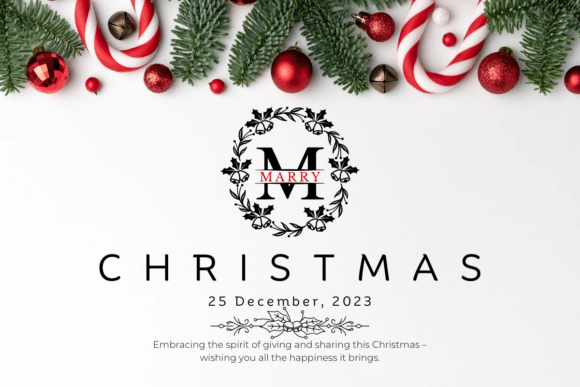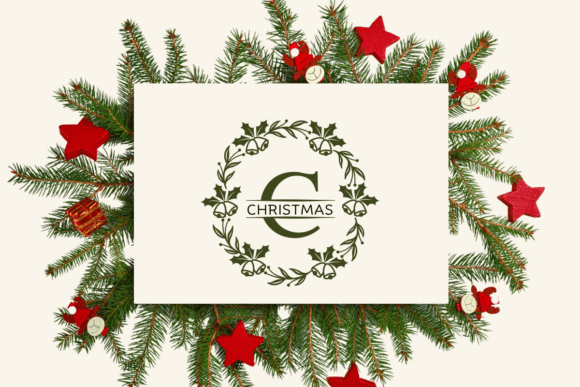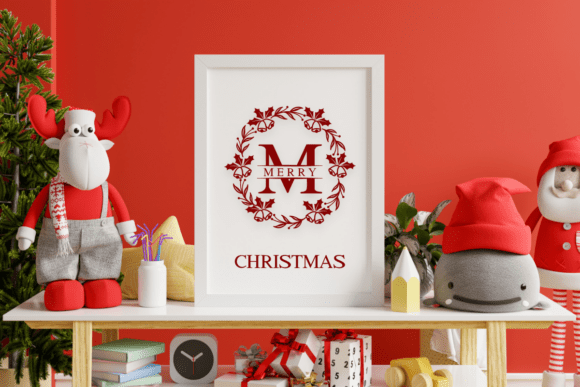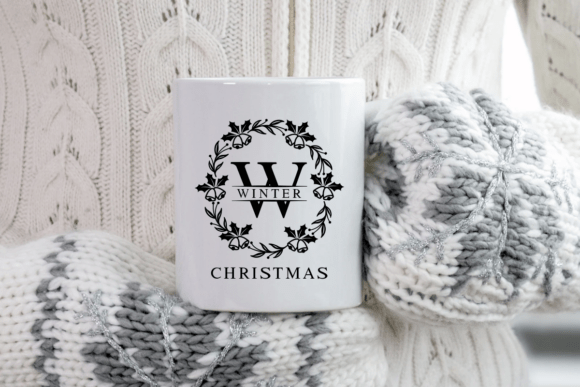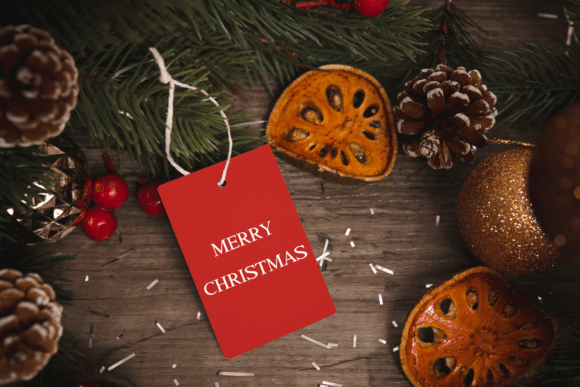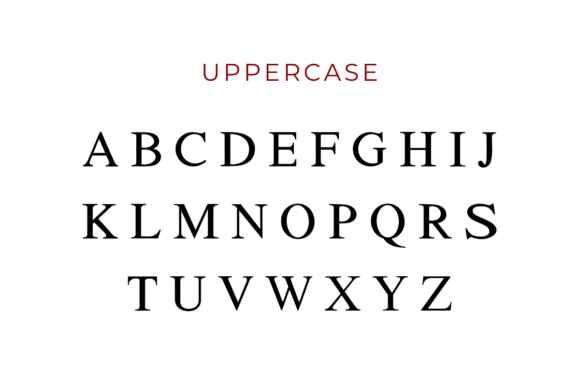
Holly Bell Monogram Font – Free Download
Introduction to Holly Bell Monogram Font
Holly Bell is a festive and elegant decorative font inspired by classic holiday charm.
Each letter features ornamental flourishes with holly leaves and winter elements, perfect for capturing the magic of the season Ideal for Christmas cards, festive branding, gift tags, invitations, and seasonal monograms, this font brings warmth and sophistication to your holiday projects.
Key Features of Holly Bell Monogram Font
Why Choose Holly Bell Monogram Font?
Holly Bell Monogram Font offers exceptional quality and versatility, making it a valuable addition to your design toolkit. Whether you’re creating for personal projects or commercial use, Holly Bell Monogram Font delivers professional results.